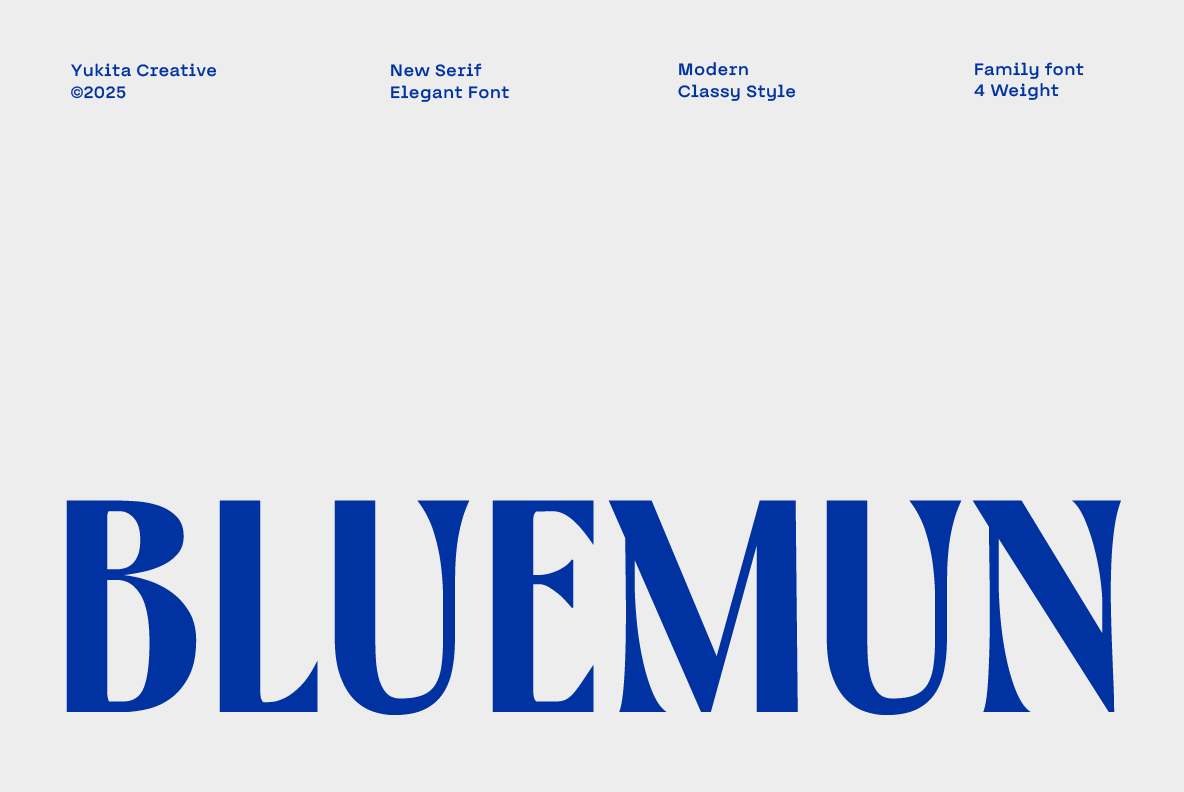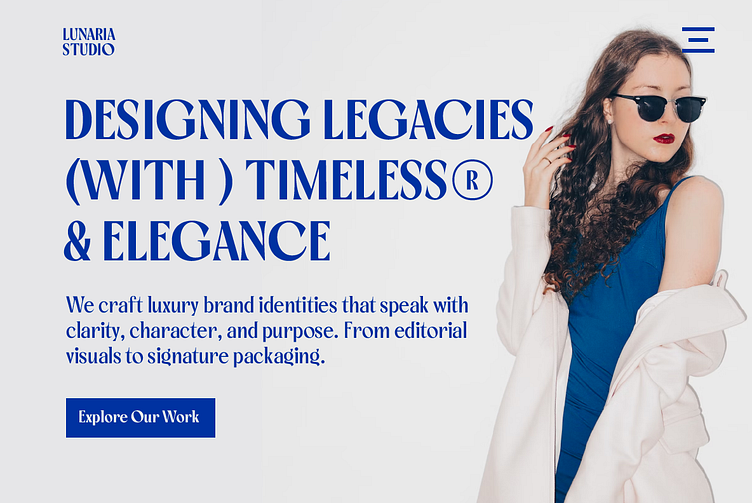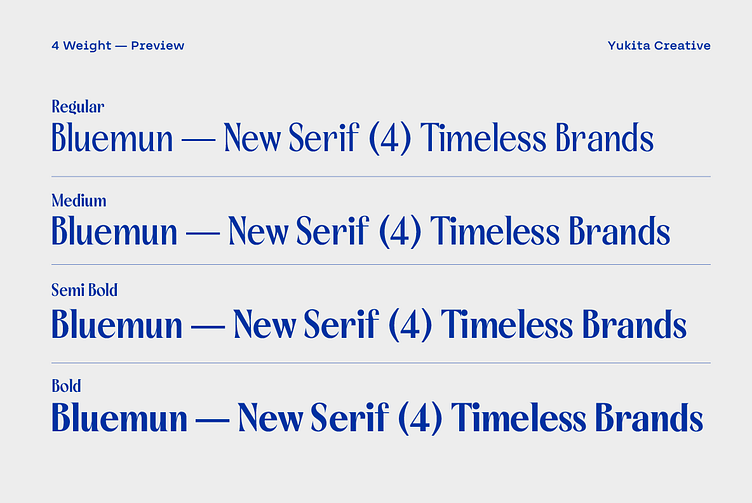
Bluemun Serif Font
Bluemun Serif is a simple and elegant serif font with a classy touch, perfect for modern and timeless design projects. It comes with 4 weights — Regular, Medium, SemiBold, and Bold — making it versatile for headlines, branding, invitations, and editorial use.
With clean lines and graceful curves, Bluemun Serif offers a refined look that enhances both digital and print layouts.
Font Features:
4 weights: Regular, Medium, SemiBold, and Bold
Stylish and readable serif design
Perfect for display text
Fully multilingual support
Smooth performance on web and print